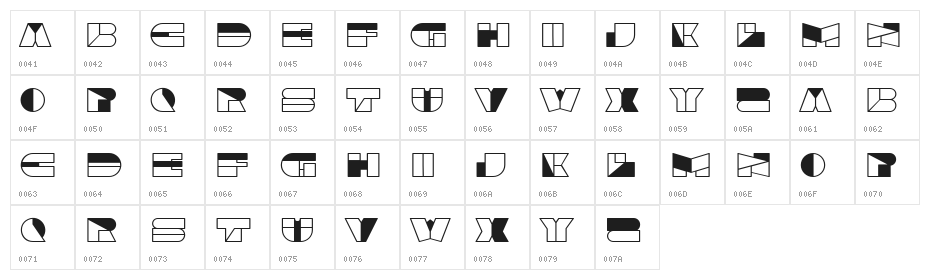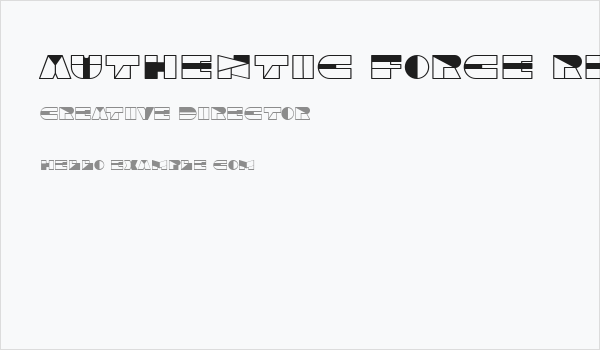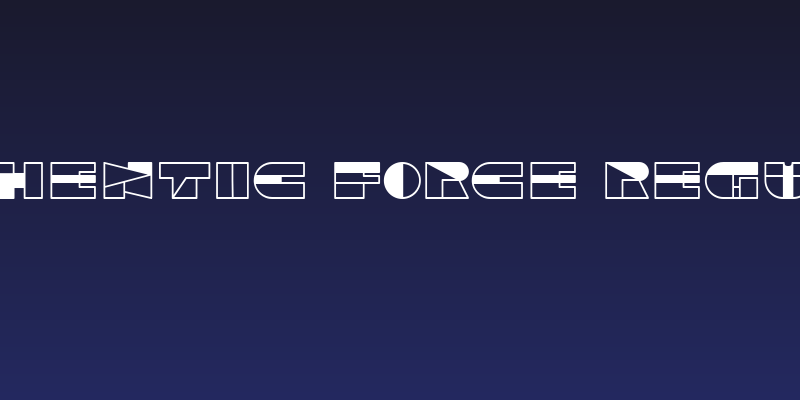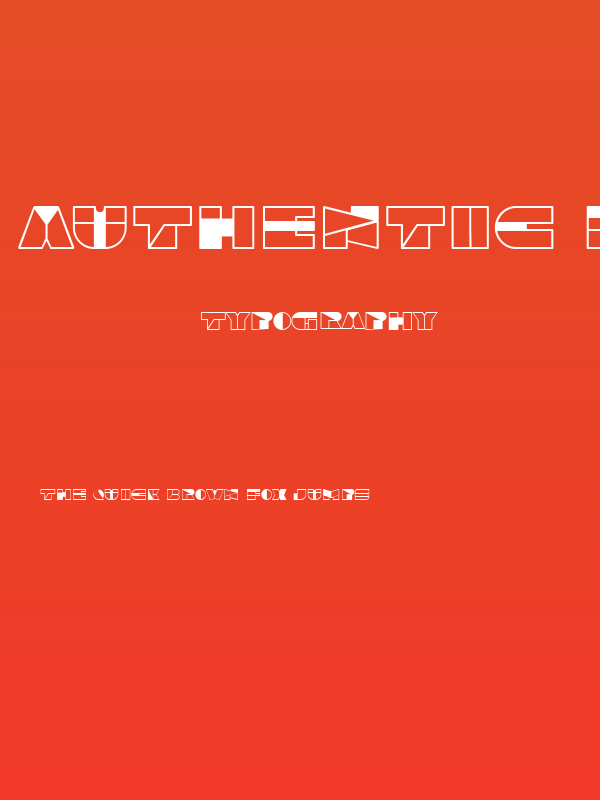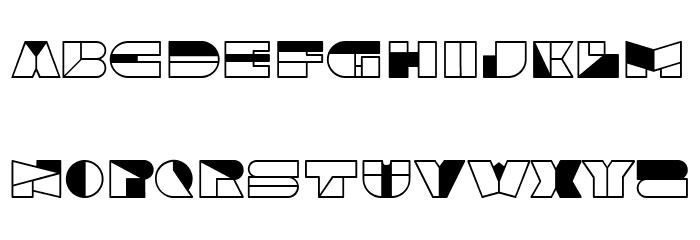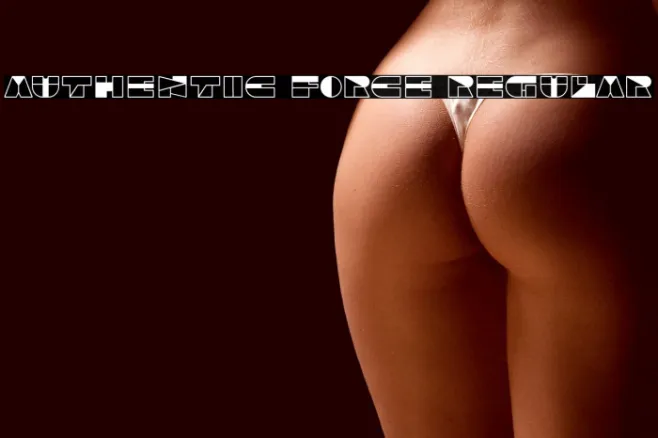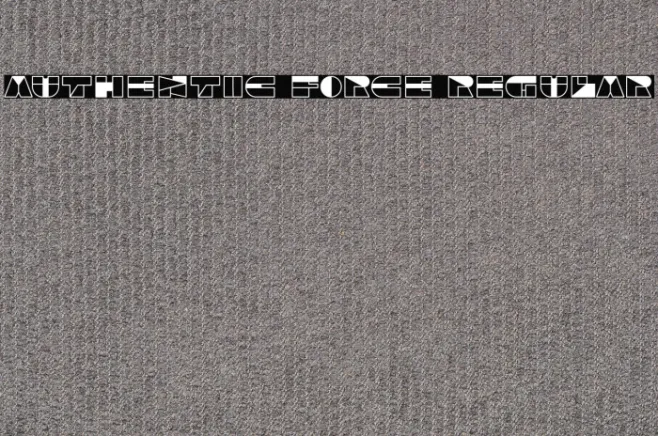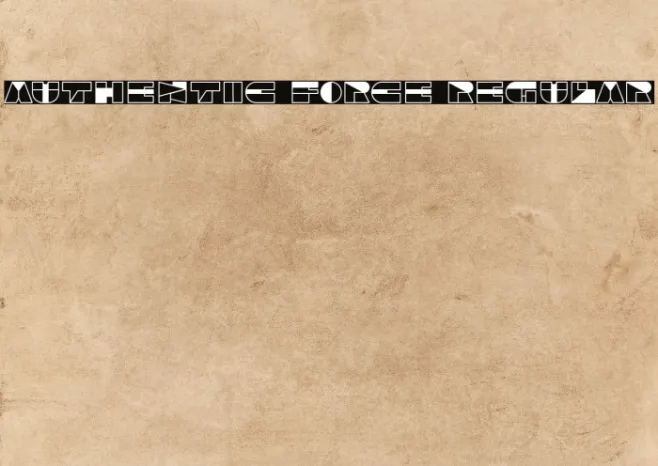
Authentic Force Regular Font
Authentic Force Regular Description
This font features a bold and geometric design, characterized by its strong, angular shapes and high contrast between thick and thin lines. The uppercase letters are particularly striking, with a futuristic and industrial feel. The font's structure is composed of solid blocks and negative spaces, creating a dynamic and visually engaging appearance. It is highly stylized, making it ideal for attention-grabbing headlines or logos. The unique design elements give it a modern and edgy look, suitable for projects that require a bold statement.
| Proposed Projects | Ideal for branding, posters, album covers, and any project needing a modern, eye-catching font. |